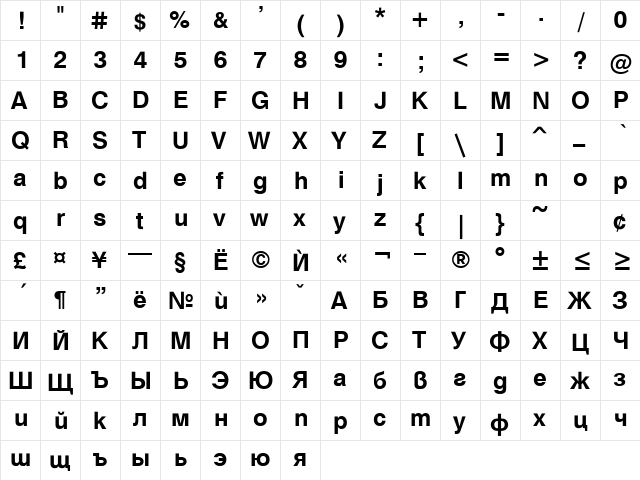
HebarB Bold
Design Context for HebarB Typeface
HebarB takes a measured approach to typography — its balanced proportions and neutral character make it a reliable workhorse for both digital and print work. Its bold stroke weight gives it real presence on the page.